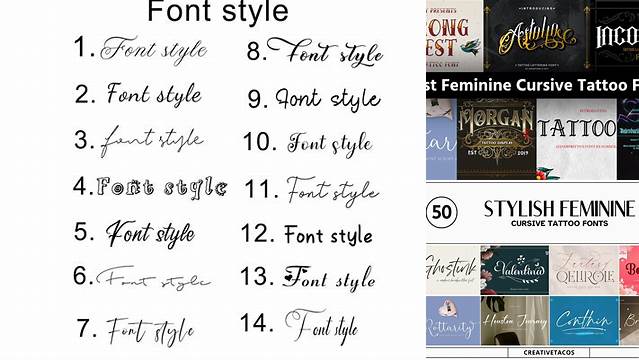
Elegant Tattoo Fonts: Cursive & Feminine Designs
Hey guys! Thinking about getting a tattoo? A super popular choice is using cursive fonts, especially when you're going for a feminine vibe. Letâs dive into everything you need to know about choosing the perfect tattoo fonts cursive feminine for your next ink!
Why Choose Cursive Fonts for Tattoos?
Tattoo fonts cursive feminine designs are all the rage for a reason. The flowing, connected letters give off an air of elegance, grace, and personal touch that other fonts just can't match. Whether you're inking a name, a quote, or a special date, cursive adds a beautiful and sophisticated flair. Plus, there's a ton of variety within cursive fonts, from delicate and airy scripts to bold and dramatic swoops. You can find the perfect style to reflect your personality and the message you want to convey. When thinking about what kind of tattoo fonts cursive feminine design you want, consider the placement of the tattoo. A longer quote might look amazing wrapping around your wrist in a delicate cursive, while a single word might pop beautifully on your collarbone in a bolder, more flourished script. The key is finding a font that not only looks good but also complements the area of your body you're decorating. Let's not forget the healing process too! Intricate cursive designs might require a skilled artist to ensure the lines stay crisp and clean as your skin heals. So, take your time, do your research, and choose a cursive font that you'll absolutely adore for years to come!
The Allure of Feminine Tattoo Designs
Feminine tattoos often incorporate delicate lines, soft curves, and imagery associated with beauty and grace. Think floral motifs, butterflies, hearts, and of course, elegant tattoo fonts cursive feminine. The combination of these elements creates a visually appealing and deeply personal piece of art. Many women opt for tattoo fonts cursive feminine because it resonates with their inner selves, celebrating their femininity and expressing their individuality. These tattoos can be a powerful statement of self-love, strength, and empowerment. When considering a feminine tattoo, it's important to think about what femininity means to you personally. Does it mean embracing your softness and vulnerability? Or does it mean celebrating your strength and resilience? Your tattoo can be a visual representation of these qualities. Also, keep in mind the placement of your tattoo. Delicate designs often look stunning on areas like the wrist, collarbone, or ankle, while larger, more intricate pieces can make a statement on the back, thigh, or upper arm. Ultimately, the goal is to create a tattoo that feels authentic and meaningful to you, a beautiful expression of your unique femininity. That's why pairing a tattoo fonts cursive feminine design with imagery is so powerful.
Popular Cursive Fonts for Tattoos
Okay, guys, let's get into some specific font names! When it comes to tattoo fonts cursive feminine, you've got tons of options to choose from. Brush Script is a classic choice, known for its flowing letters and elegant feel. Scriptina is another popular pick, offering a more dramatic and flourished look. If you're going for something a bit more modern, * āĻā§āϝāĻžāύā§āϞā§āϰ Script* might be right up your alley, with its clean lines and contemporary vibe. And for a truly romantic touch, consider āĻāĻāϞāĻŋāĻļ Script, which exudes timeless elegance. But don't stop there! There are literally thousands of cursive fonts out there, so take some time to browse through online font libraries and find one that speaks to you. Websites like DaFont and Fontspace offer a huge selection of free fonts to download and experiment with. You can also check out tattoo artist portfolios for inspiration, paying attention to the fonts they commonly use. Remember, the best font is one that you absolutely love and that perfectly captures the message you want to convey. So, explore your options, play around with different styles, and have fun finding the perfect tattoo fonts cursive feminine for your dream tattoo!
Choosing the Right Font Size and Placement
Font size and placement are crucial factors when it comes to tattoo fonts cursive feminine. A font that looks beautiful in a large size might become illegible when shrunk down, especially with intricate cursive designs. So, it's important to consider the size of your tattoo and choose a font that will remain clear and readable over time. As for placement, think about how the font will flow with the contours of your body. A longer quote might look stunning wrapping around your wrist, while a single word might pop beautifully on your collarbone. Also, keep in mind that certain areas of the body are more prone to fading or blurring, so it's best to avoid intricate cursive designs in those areas. Consult with your tattoo artist for their expert advice on font size and placement. They can help you choose a font that will not only look amazing but also stand the test of time. Remember, a well-placed and properly sized tattoo fonts cursive feminine will enhance the overall look and feel of your tattoo, ensuring that it remains a beautiful and meaningful piece of art for years to come.
Cursive Tattoo Fonts and Their Meanings
Tattoo fonts cursive feminine are more than just pretty designs; they often carry deep personal meanings. The words or phrases you choose to ink on your body can represent your beliefs, values, or experiences. A cursive tattoo might be a tribute to a loved one, a reminder of a personal triumph, or a declaration of your dreams and aspirations. The flowing, elegant nature of cursive adds an extra layer of emotion and depth to these messages. When choosing a cursive font for your tattoo, consider the overall tone and feeling you want to convey. A delicate, airy script might be perfect for expressing love and tenderness, while a bolder, more flourished font could represent strength and resilience. And remember, the meaning of your tattoo is ultimately up to you. It's a personal expression of who you are and what you stand for. So, choose words and fonts that resonate with your heart and soul, and create a tattoo that is truly meaningful to you. Getting a tattoo fonts cursive feminine is a big deal, so make sure you're ready!
Combining Cursive Fonts with Other Design Elements
One way to make your tattoo fonts cursive feminine even more unique is to combine it with other design elements. For example, you could incorporate floral motifs, such as roses, lilies, or cherry blossoms, to add a touch of beauty and femininity. Or you could add geometric shapes, such as triangles or circles, to create a more modern and edgy look. Another popular option is to combine cursive fonts with watercolor effects, creating a soft and dreamy aesthetic. The possibilities are endless! The key is to find design elements that complement the cursive font and enhance the overall message of your tattoo. When combining different elements, it's important to consider the balance and composition of the design. You want to create a tattoo that is visually appealing and harmonious, with all the elements working together to create a cohesive whole. Consult with your tattoo artist for their expert advice on combining different design elements. They can help you create a tattoo fonts cursive feminine that is truly one-of-a-kind and reflects your personal style.
The Timeless Appeal of Cursive Tattoos
Cursive tattoos have a timeless appeal that transcends trends and fads. They've been a popular choice for decades, and they continue to be a favorite among tattoo enthusiasts of all ages. The elegance and grace of cursive fonts make them a versatile choice for a wide range of tattoo designs. Whether you're getting a small, delicate tattoo on your wrist or a large, intricate piece on your back, cursive can add a touch of sophistication and style. One of the reasons for the enduring popularity of cursive tattoos is their ability to convey personal meaning. The flowing, connected letters create a sense of intimacy and connection, making them a perfect choice for expressing love, remembrance, or personal beliefs. And because cursive fonts are so versatile, they can be adapted to suit a wide range of styles and aesthetics. Whether you're going for a classic, vintage look or a modern, minimalist vibe, cursive can be incorporated seamlessly into your design. So, if you're looking for a tattoo fonts cursive feminine that will stand the test of time, cursive is definitely a great option to consider. Just make sure you pick something meaningful!
The Cost of a Cursive Tattoo
The cost of a tattoo fonts cursive feminine can vary depending on several factors, including the size, complexity, and location of the tattoo, as well as the artist's experience and hourly rate. Smaller, simpler cursive tattoos may cost as little as $50 to $100, while larger, more intricate designs can cost several hundred dollars or more. It's important to get a quote from your tattoo artist before you commit to anything. Be sure to ask about any additional fees, such as setup fees or aftercare product costs. And remember, the cheapest option is not always the best option. It's worth paying a little extra for a skilled and reputable artist who can create a tattoo fonts cursive feminine that you'll love for years to come. Don't forget to tip your artist if you're happy with their work!